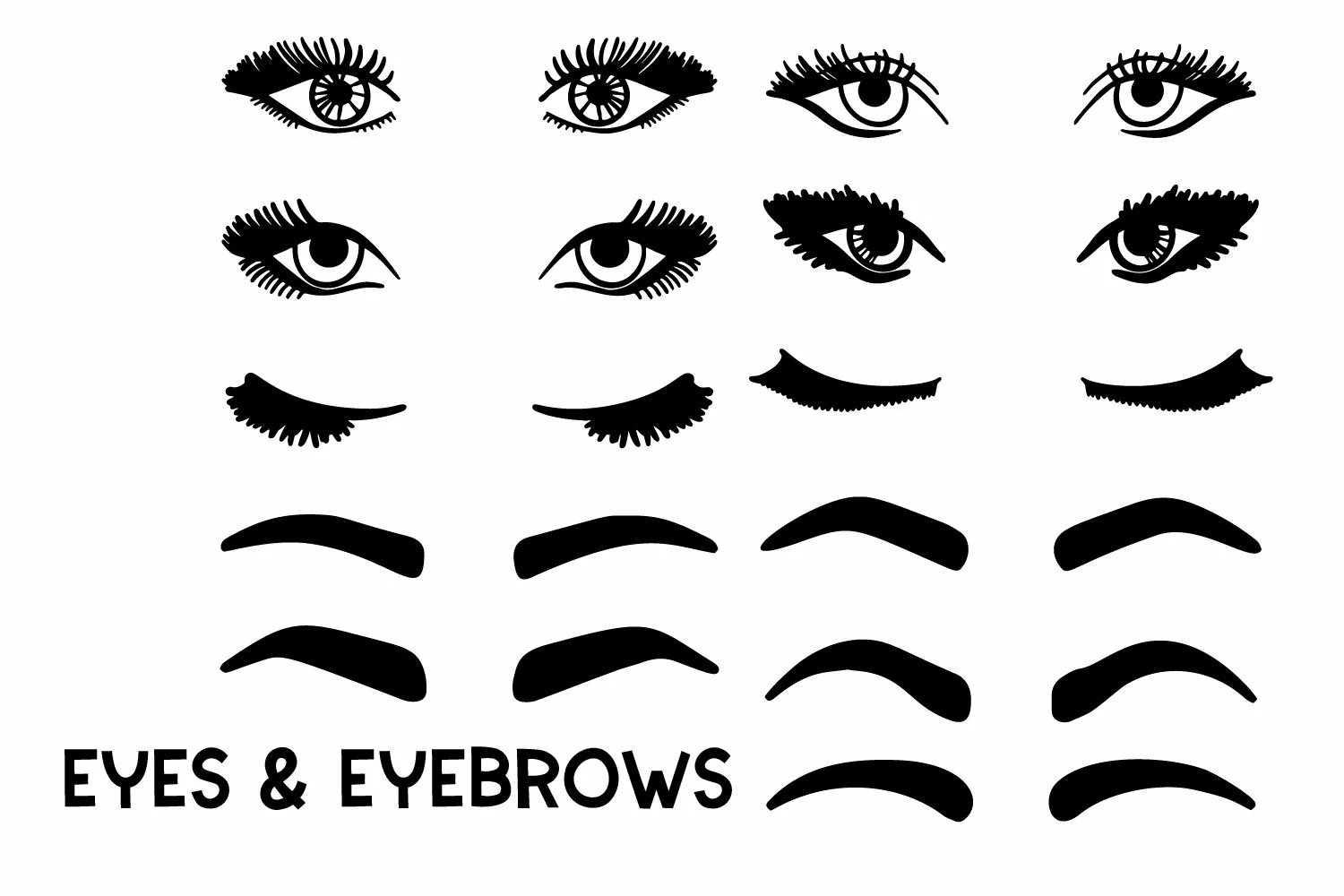
This "messy bun" maker includes 25 different hairstyles featuring afro puffs, afro buns and double buns as well!
Includes 6 variations of eyes, 5 eye brow choices and 15 accessories
Some accessories come with a "backing" so that you can layer the accessory over the buns. You'll want to either color this (printing) or subtract it from the design (cutting)